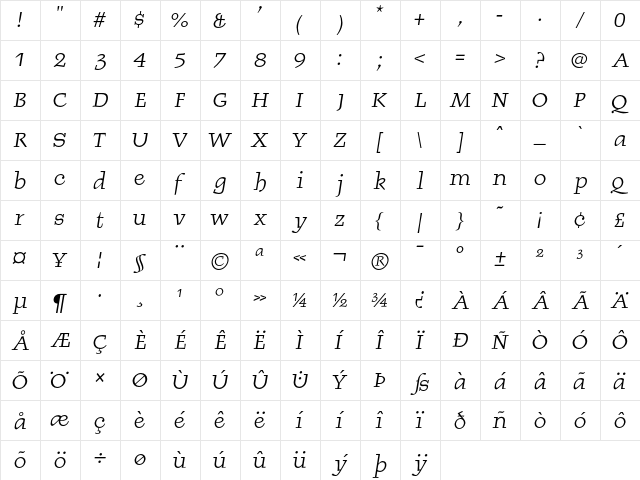
BurgstaedtAntiqua LT Std Italic Regular Font Preview
| Foundry | Linotype Library GmbH |
| Designer | Richard Yeend |
Design Context for BurgstaedtAntiqua LT Std Italic Typeface
BurgstaedtAntiqua LT Std Italic offers clean, dependable letterforms without strong stylistic allegiance, making it a practical choice for designers who need flexibility. The dynamic lean of this cut emphasises speed and emphasis in any layout. Its slender proportions lend an understated elegance to any composition.
Pro Tip: Try BurgstaedtAntiqua LT Std Italic for annotation and caption copy alongside an upright companion — the contrast in angle creates a dynamic but ordered typographic system.